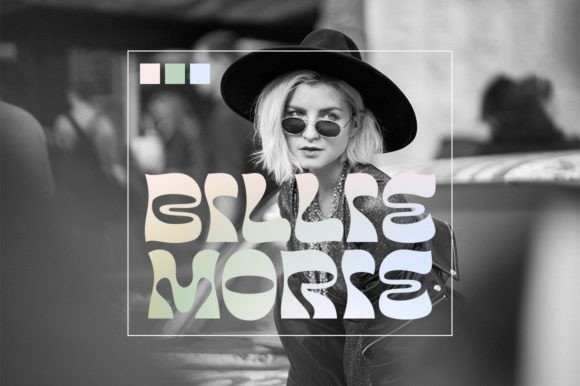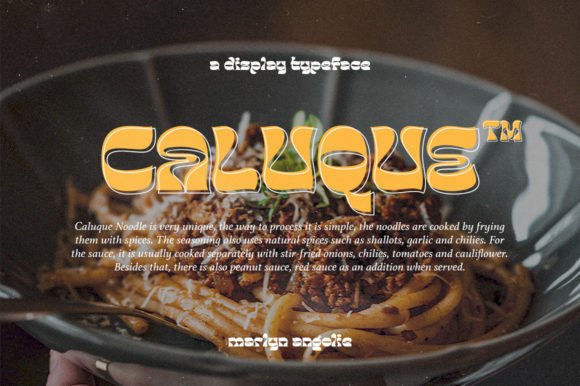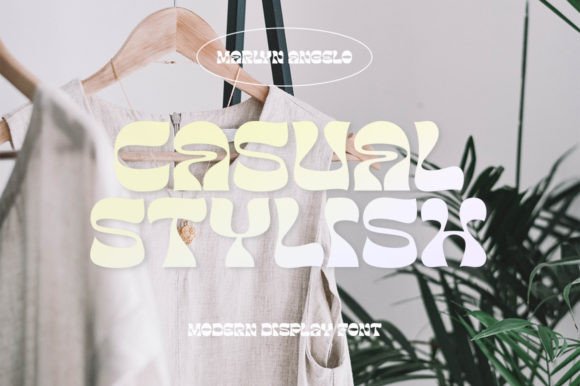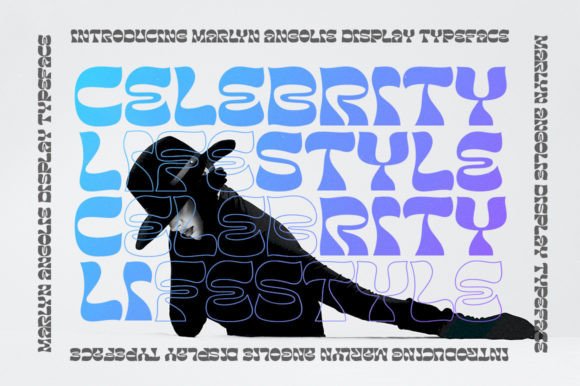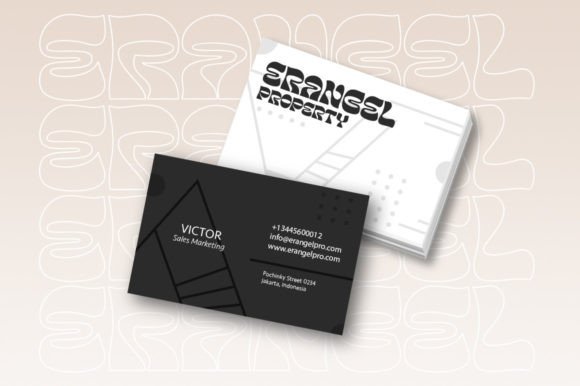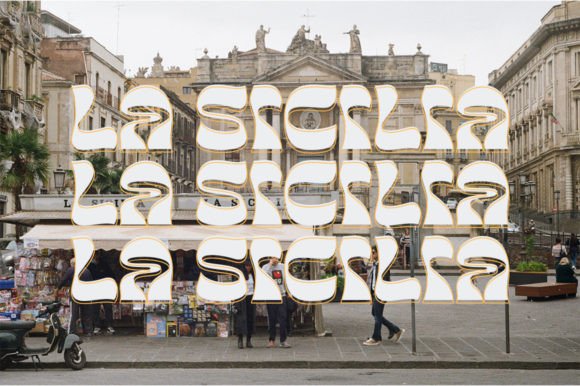
Introduction to Marlyn Angolie Font
Marlyn Angolie is a distinctive display typeface with a psychedelic and retro style: perfect for logos, brand identity and modern typographic designs for your project.
It’s unique, bold, and slim figure make it a great fit for t-shirts, posters, and magazine covers .
Key Features of Marlyn Angolie Font